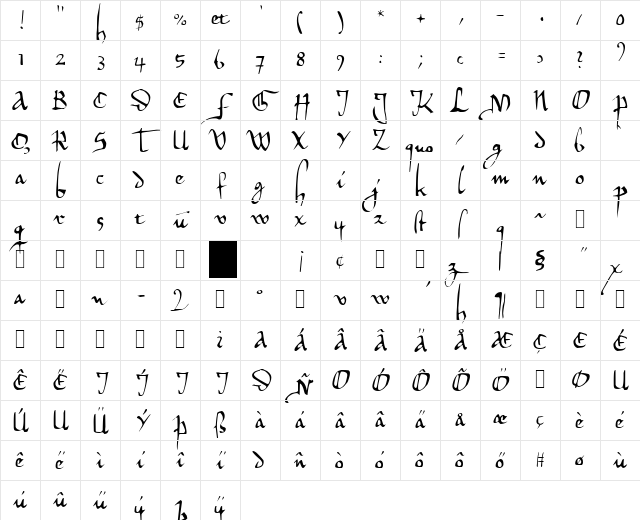
Herman Decanus Light AH Regular
Foundry: Fontgrube AH
Designer: Andreas H￿d
Design Context for Herman Decanus Light AH
Herman Decanus Light AH is a composed and adaptable typeface that performs quietly and consistently across a wide range of design contexts. Its slender proportions lend an understated elegance to any composition.